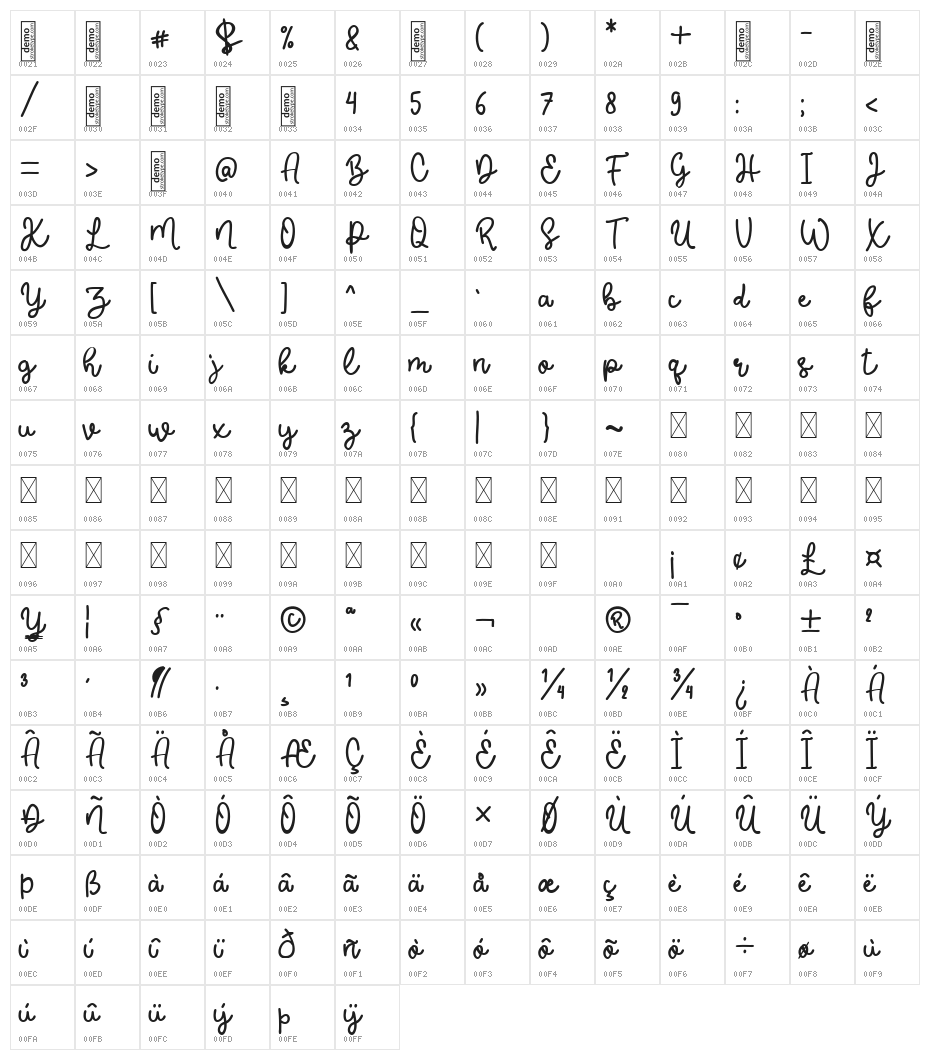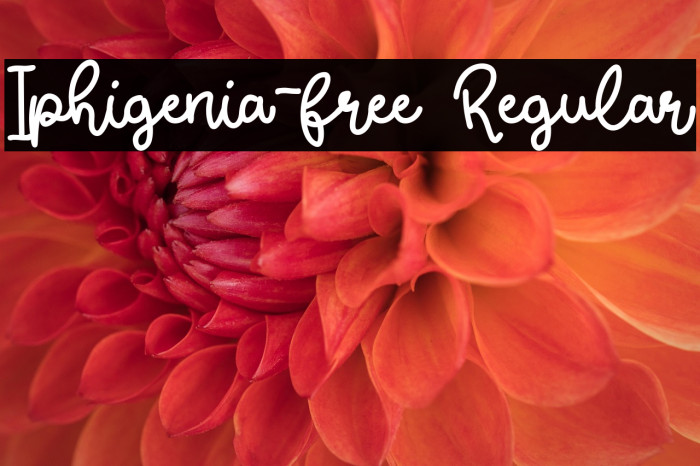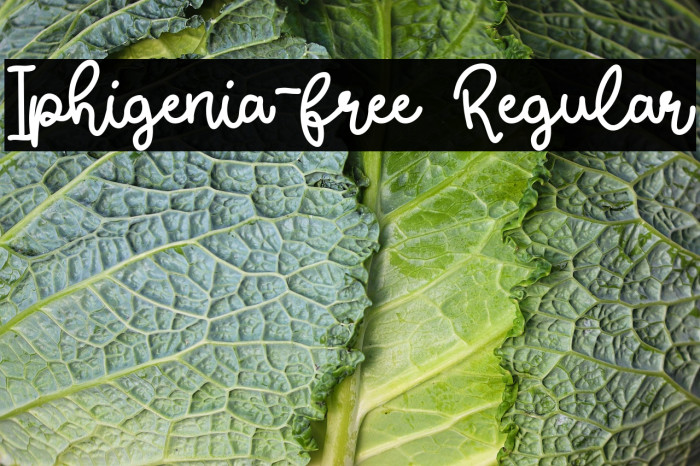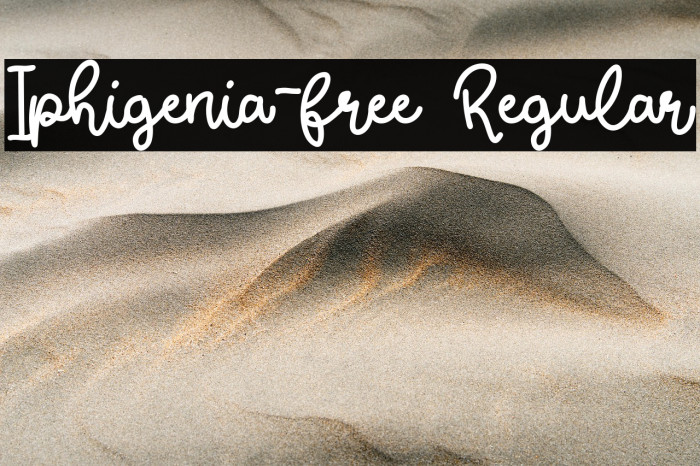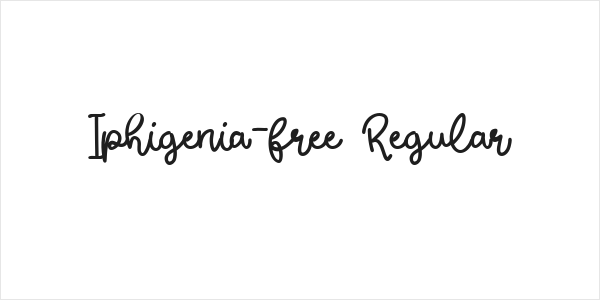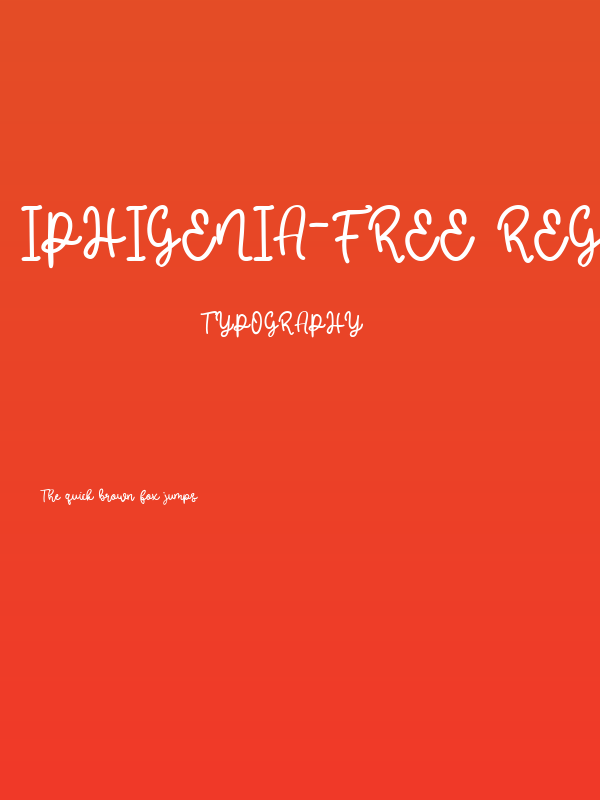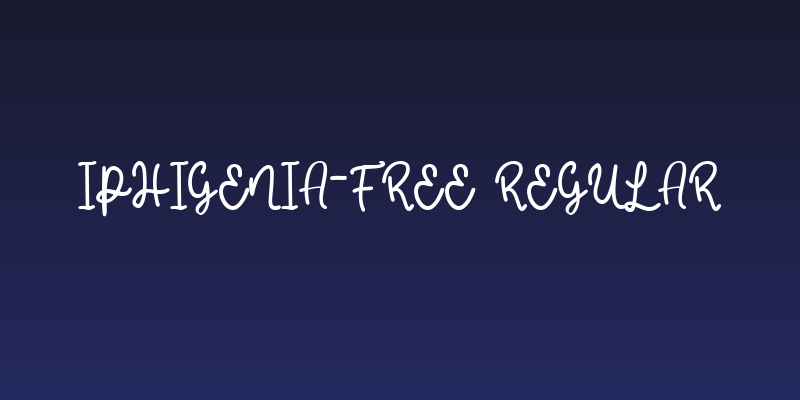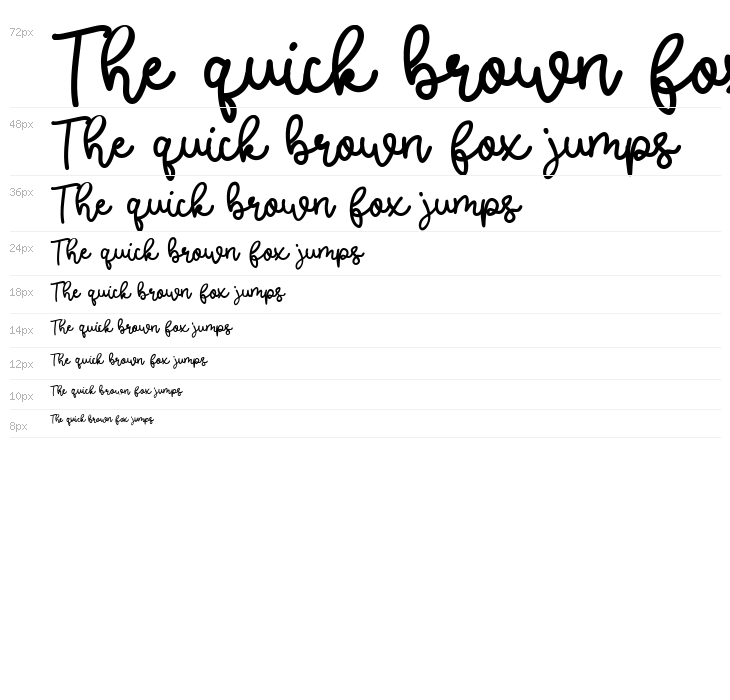
Iphigenia-free Regular Font
Iphigenia-free Regular Description
A playful, handwritten script font with a casual and friendly appearance. The letters are connected, giving it a flowing and dynamic style.
| Use Case | Logos, Headlines |
| Proposed Projects | Greeting cards, invitations, personal branding. |